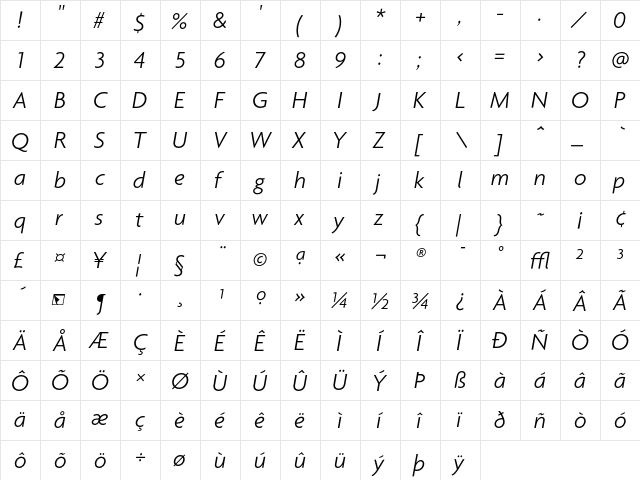
Agenda LightItalic Font Preview
Design Context for Agenda Typeface
Agenda offers clean, dependable letterforms without strong stylistic allegiance, making it a practical choice for designers who need flexibility. The dynamic lean of this cut emphasises speed and emphasis in any layout. The delicate stroke weight brings airiness and refinement to layouts.
Pro Tip: Try Agenda for annotation and caption copy alongside an upright companion — the contrast in angle creates a dynamic but ordered typographic system.